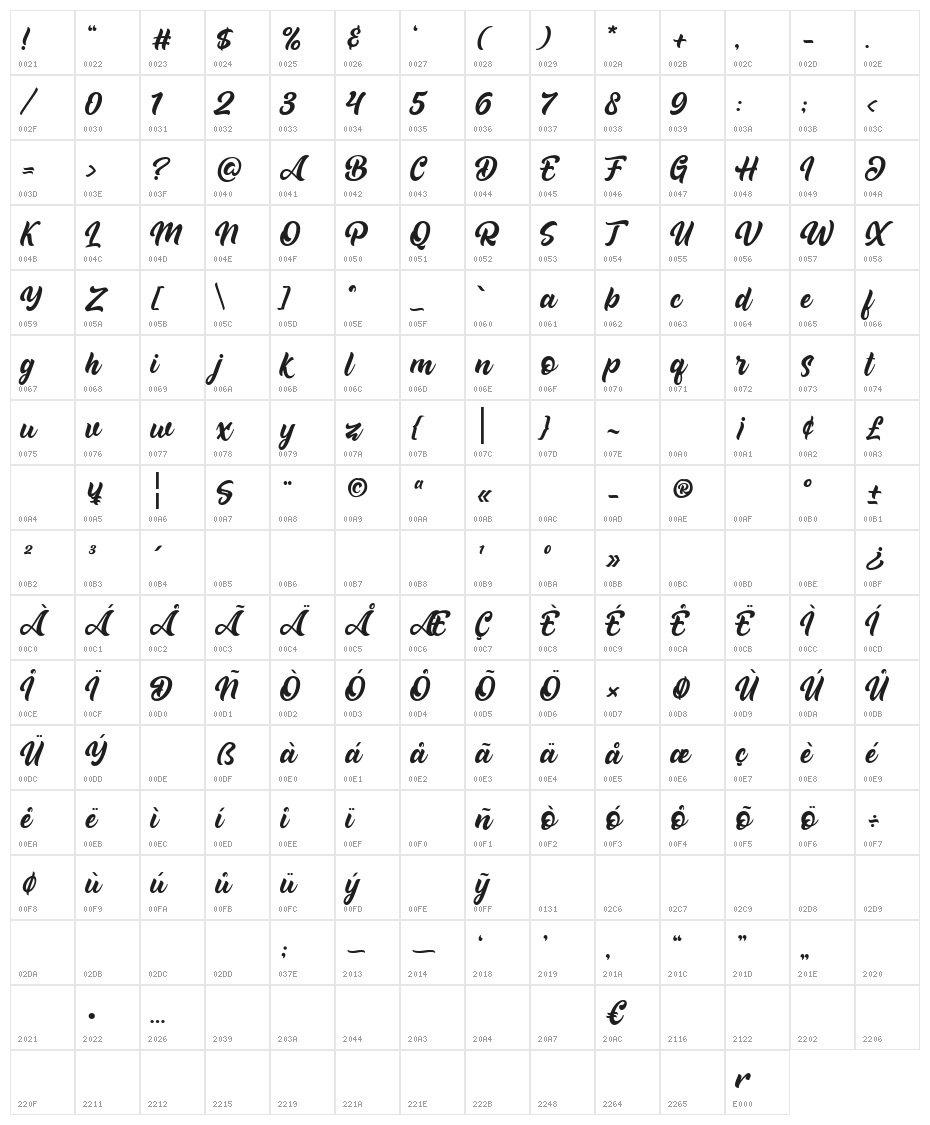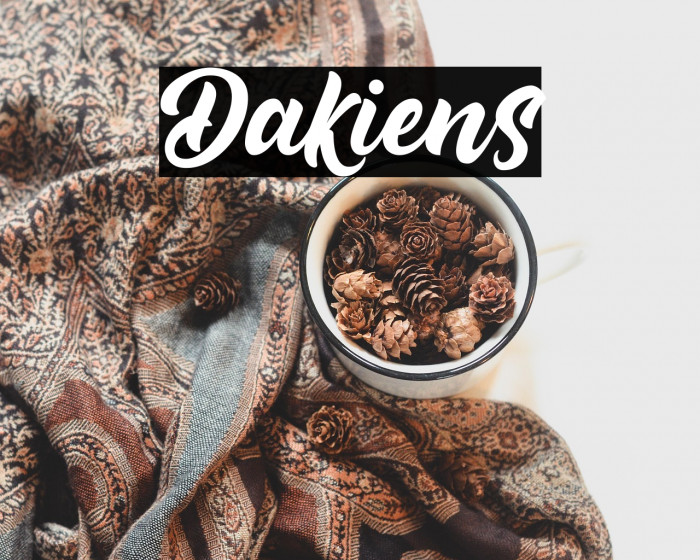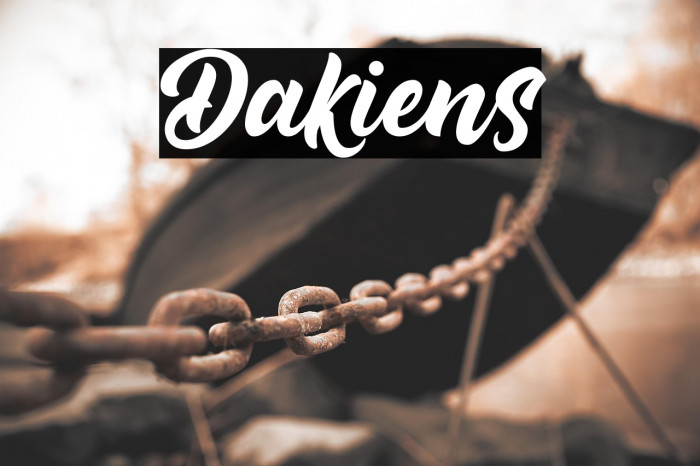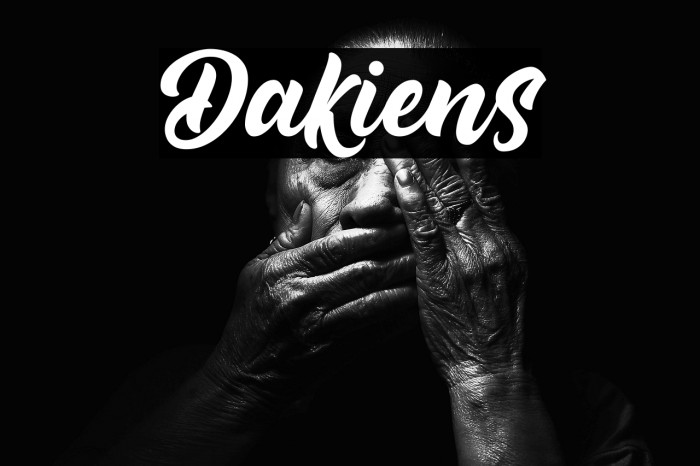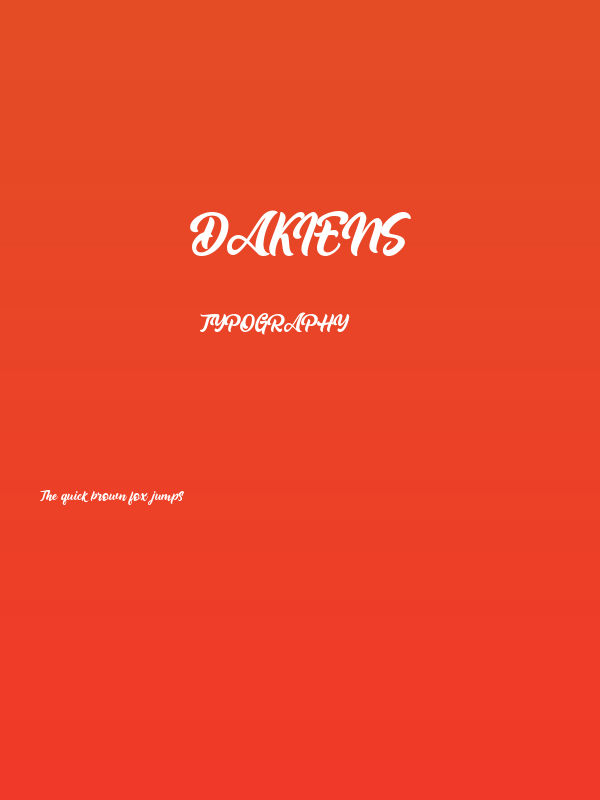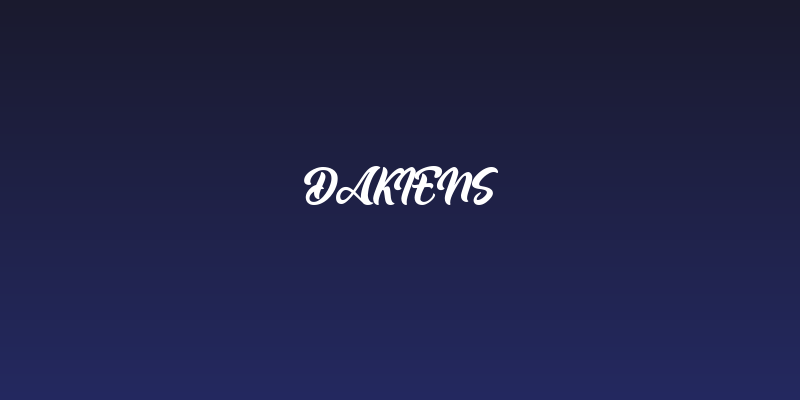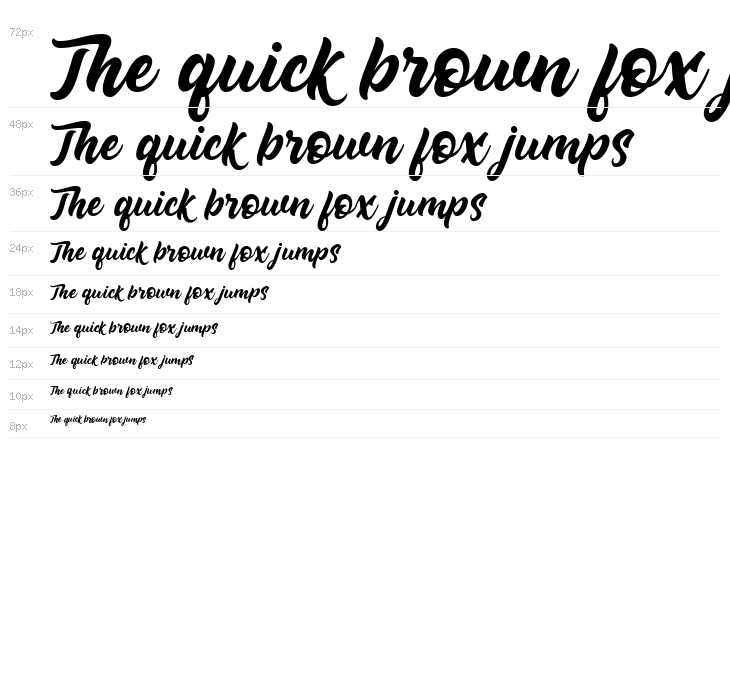
Dakiens Font
Dakiens Description
This font features a bold, cursive style with smooth, flowing lines that create a sense of elegance and movement. The characters are closely connected, giving it a handwritten appearance. The uppercase letters are slightly larger and more pronounced, while the lowercase letters maintain a consistent flow. The numbers and special characters follow the same stylistic approach, ensuring uniformity across all elements. The overall design is both decorative and legible, making it suitable for various creative applications.
| Proposed Projects | Ideal for wedding invitations, greeting cards, logos, and branding materials that require a personal touch. |